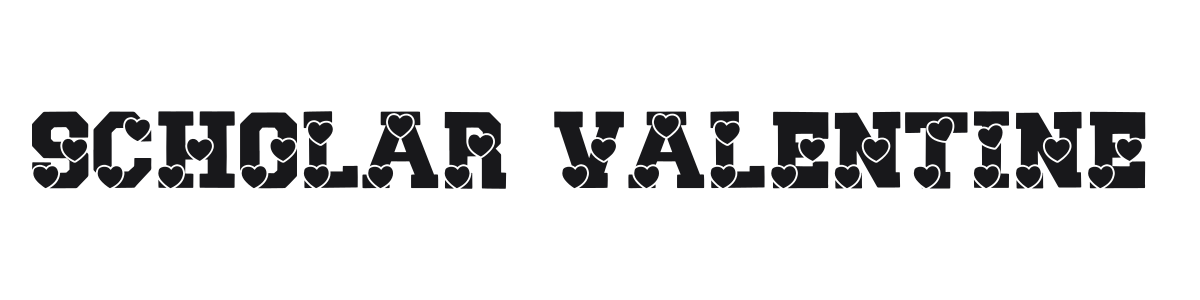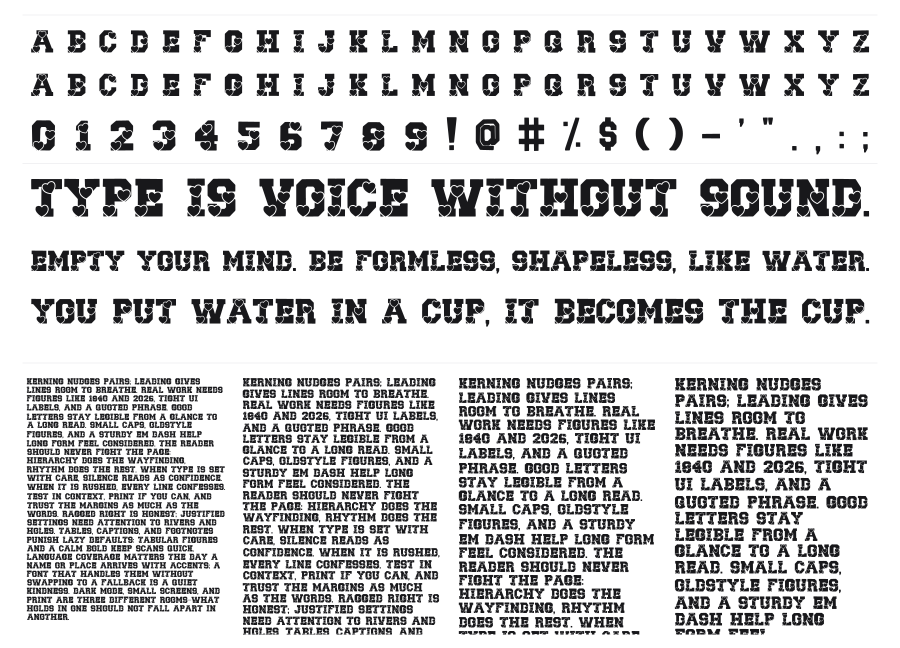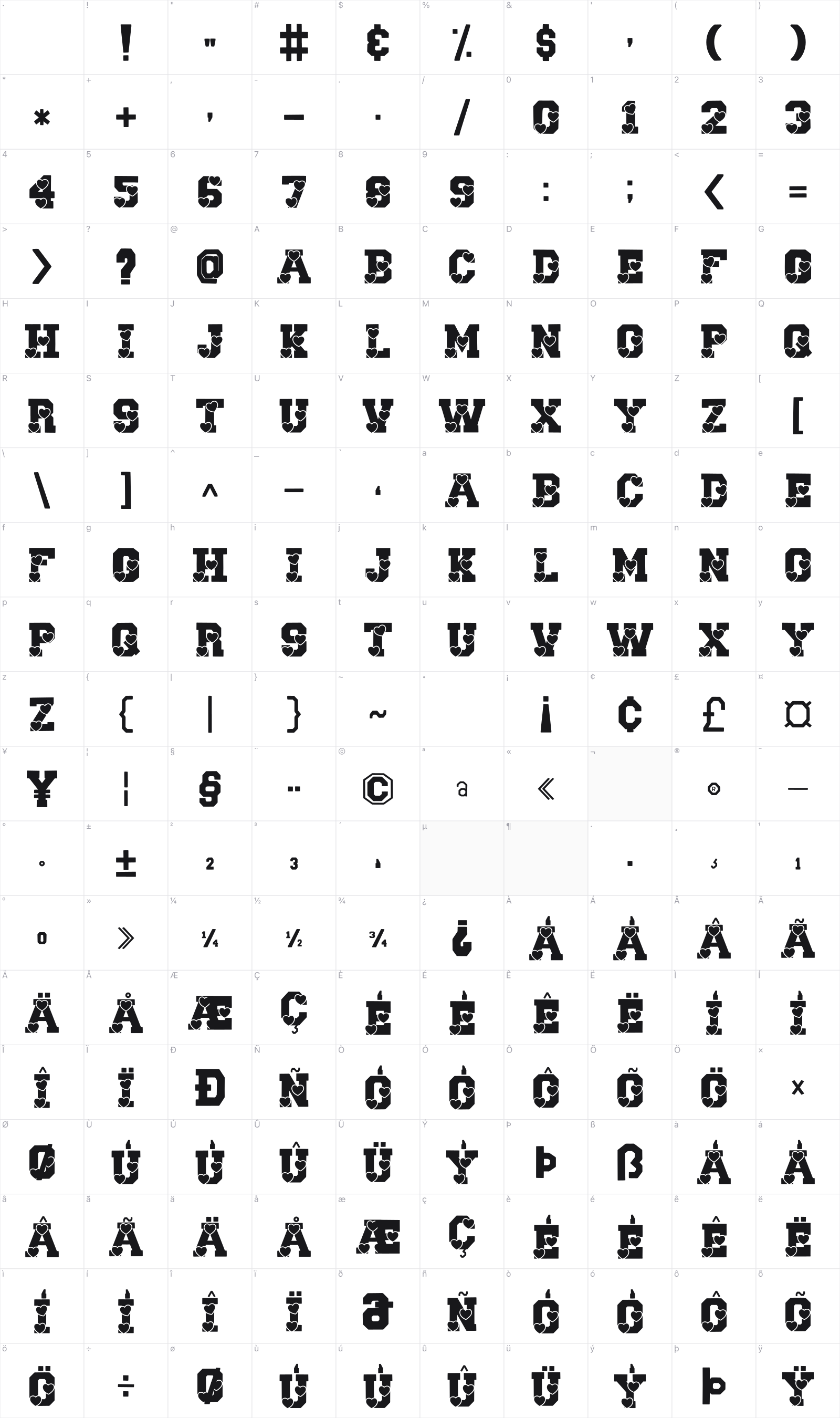
Scholar Valentine
Scholar Valentine is a bold slab-serif display font with heart-shaped cutouts punched into every letter. The heavy, blocky construction draws from Western and Victorian display traditions, while the integrated heart motifs make the Valentine theme impossible to miss. Strong at large sizes for cards, posters, and seasonal packaging.